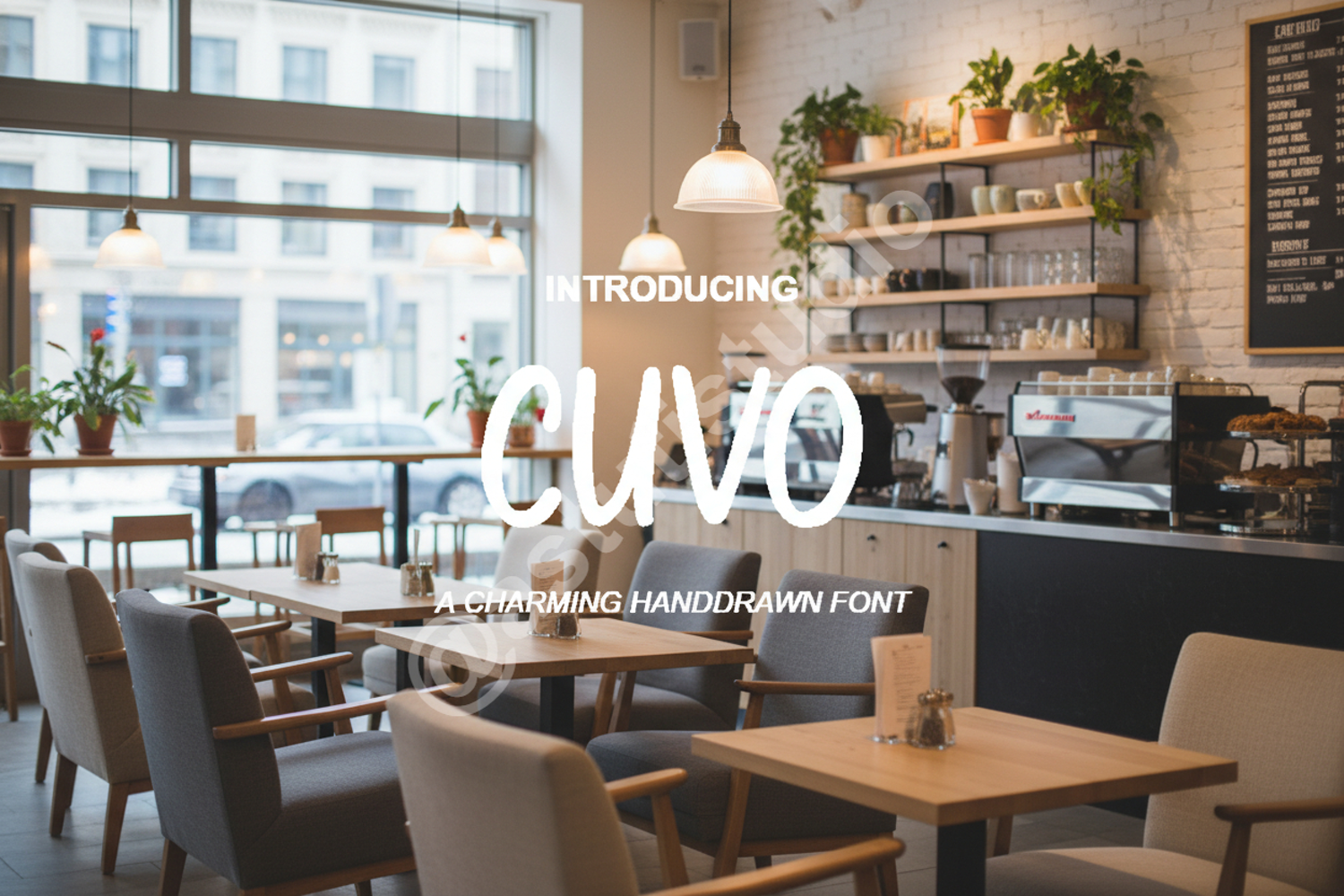
Cuvo - Modern Geometric Sans Serif Typeface
Cuvo
Elevate your creative projects with Cuvo, a premium modern geometric sans serif font designed for high-impact visual communication. Cuvo blends minimalist aesthetics with professional precision, offering a versatile solution for designers who demand clarity and style. Its balanced proportions and clean lines ensure it remains timeless across various digital and print mediums.
- Full set of uppercase and lowercase letters
- Numbers, punctuation, and multi-language support
- Branding and Identity: Create sophisticated logos and cohesive corporate identities.
- Editorial Design: Perfect for high-end magazine layouts, headlines, and subheadings.
- Social Media Graphics: Stand out on platforms like Instagram and Pinterest with bold, legible typography.
- Product Packaging: Enhance premium product designs with a clean, modern aesthetic.
- Website Design: Ensure a professional and readable user experience across all devices.